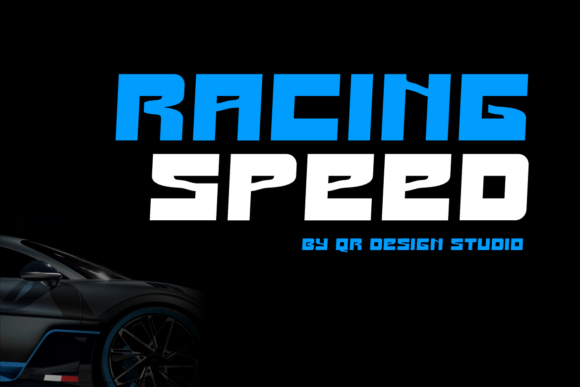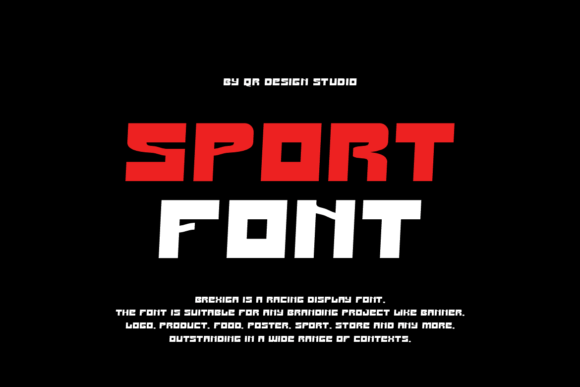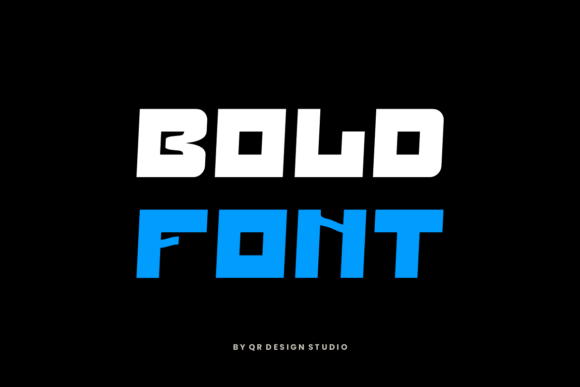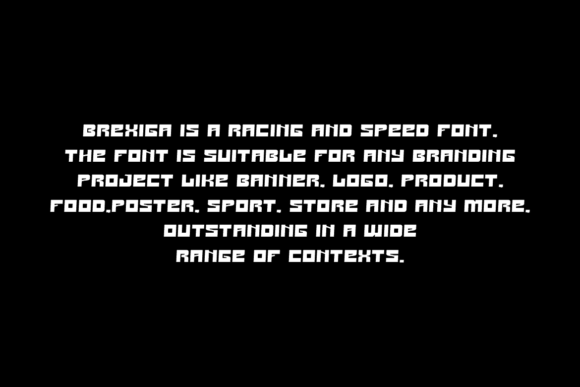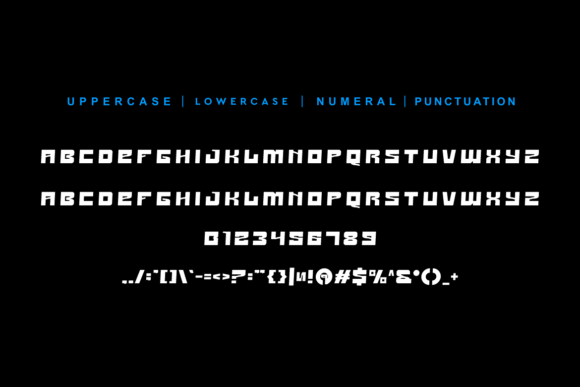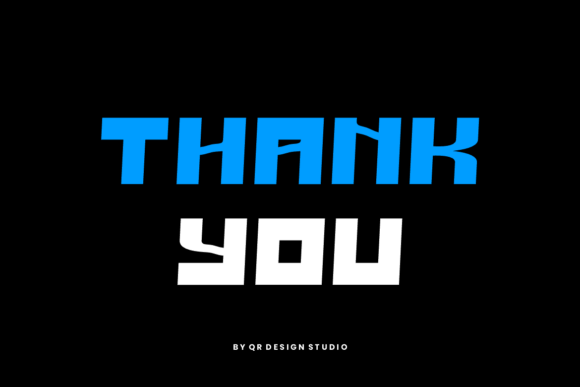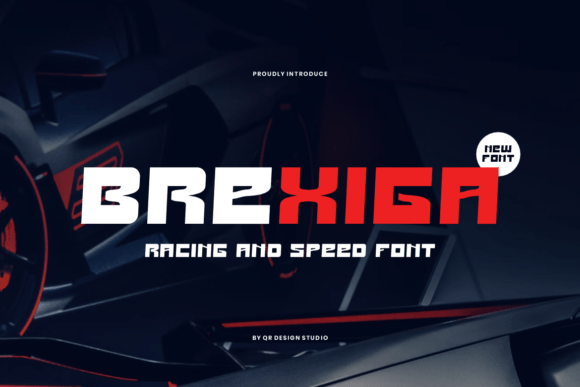
Introducing Brexiga Font: The Ultimate Display Font for Bold Statements
In the world of typography, fonts play a crucial role in conveying messages, expressing emotions, and creating visual identities. For designers, crafters, and marketers, finding the right font can make all the difference in making a statement. This is where Brexiga Font comes in – a cool, bold display font designed to make a strong visual impact. With its robust letterforms and sharp edges, Brexiga exudes confidence, making it ideal for powerful headlines, branding projects, and promotional materials that demand attention.
The Power of Bold Typography
Bold typography has always been a staple of effective design. It grabs attention, conveys confidence, and communicates strength. In today’s competitive market, brands need to stand out from the crowd, and bold typography can help achieve that. Brexiga Font is specifically designed to cater to this need. Its bold and robust letterforms are perfect for creating powerful headlines, titles, and slogans that demand attention.
What Makes Brexiga Font Special?
Brexiga Font is not just another display font; it’s a carefully crafted typeface designed to make a statement. Here are some features that make Brexiga special:
- Robust Letterforms: Brexiga’s letterforms are designed to be strong and sturdy, making them perfect for headlines, titles, and promotional materials.
- Sharp Edges: The sharp edges of Brexiga’s letterforms give it a bold and edgy look, making it ideal for brands that want to convey confidence and strength.
- High Versatility: Brexiga is a highly versatile font that can be used for a wide range of design projects, from branding and advertising to packaging and signage.
Brexiga Font is perfect for designers and crafters who want to add a touch of boldness to their designs. Whether you’re working on a branding project, creating promotional materials, or designing packaging, Brexiga is the perfect font to make a statement. Its ease of use and high versatility make it a valuable addition to any designer’s toolkit.
Why Choose Brexiga Font?
With so many fonts available, why choose Brexiga? Here are some reasons why Brexiga stands out:
- Unique Design: Brexiga’s unique design makes it stand out from other display fonts, ensuring that your designs will grab attention.
- Easy to Read: Despite its boldness, Brexiga is easy to read, making it perfect for headlines, titles, and promotional materials.
- High-Quality: Brexiga is a high-quality font designed to deliver exceptional results in any design project.
How to Use Brexiga Font
Using Brexiga Font is easy. Here are some tips to get you started:
- Headlines and Titles: Use Brexiga for headlines and titles to grab attention and convey confidence.
- Branding Projects: Use Brexiga for branding projects to create a strong visual identity.
- Promotional Materials: Use Brexiga for promotional materials such as posters, flyers, and brochures to make a statement.
In conclusion, Brexiga Font is a powerful display font designed to make a strong visual impact. Its robust letterforms, sharp edges, and high versatility make it perfect for designers, crafters, and marketers who want to make a statement. Whether you’re working on a branding project, creating promotional materials, or designing packaging, Brexiga is the perfect font to add a touch of boldness to your designs.